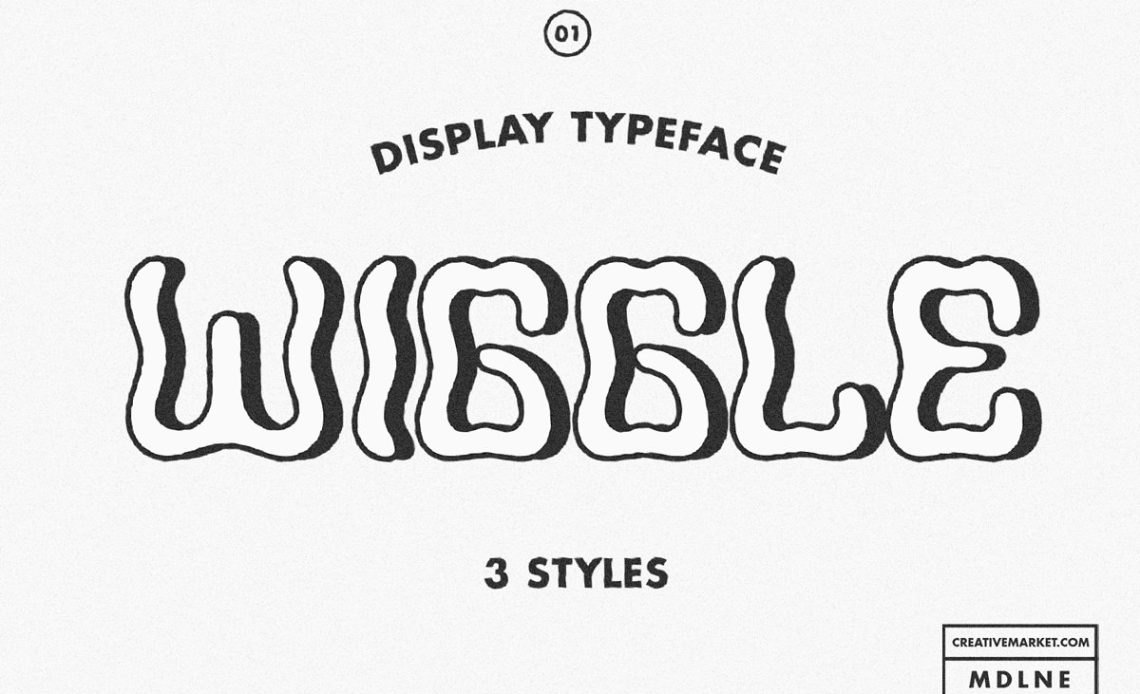
Introducing the captivating and versatile Wiggle Display Font, the ultimate choice for designers and creatives looking to make a bold statement. Created by the talented Elina Madelane, this font family is the perfect addition to your collection, guaranteed to elevate your designs to new heights.
With its fun and simple hand-drawn uppercase style, Wiggle Display Font is a breath of fresh air in the world of typography. This font comes in three exciting styles: regular, rough, and shadow, each offering a unique twist to your designs. The rough style even includes alternate texture options for every single glyph, allowing you to add an extra touch of authenticity to your projects.
But what sets Wiggle Display Font apart from the rest? It's not just about the stunning aesthetics and impeccable craftsmanship. This font is specifically optimized for display ads, making it the perfect choice for marketers and advertisers. With its eye-catching appeal, Wiggle Display Font is guaranteed to grab attention and leave a lasting impression on your audience.
Whether you're designing banners, posters, social media graphics, or website headers, Wiggle Display Font has got you covered. Its bold and playful nature brings a sense of joy and liveliness to your designs, instantly captivating viewers and conveying your message with impact. This font is a true game-changer when it comes to creating memorable and engaging visual content.
Don't settle for ordinary fonts that fail to make an impact. Choose Wiggle Display Font and let your creativity run wild. Stand out from the crowd, leave a lasting impression, and watch as your designs come to life. It's time to take your projects to a whole new level with the best font for display ads - Wiggle Display Font.